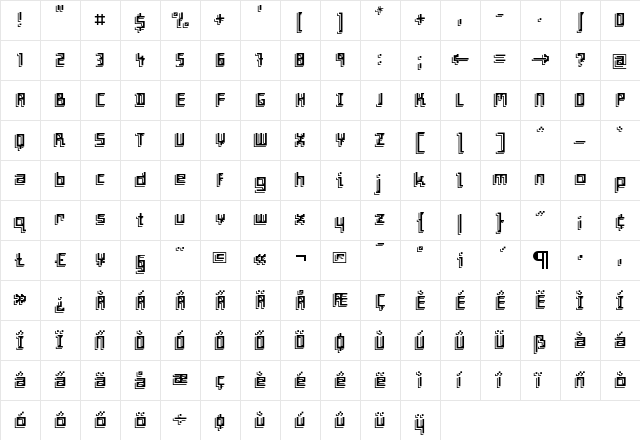
F2F FrontpageFour LT Std Regular Font Preview
F2F FrontpageFour LT Std Regular
F2F FrontpageFour LT Std Regular Font Details
| Foundry | Linotype GmbH |
| Designer | Alexander Branczyk |
Design Context for F2F FrontpageFour LT Std Typeface
F2F FrontpageFour LT Std is a composed and adaptable typeface that performs quietly and consistently across a wide range of design contexts. The delicate stroke weight brings airiness and refinement to layouts.